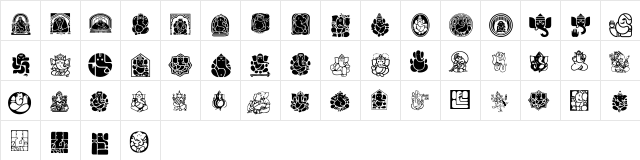
SYMBOL-1 Normal
Design Context for SYMBOL-1 Typeface
SYMBOL-1 is a composed and adaptable typeface that performs quietly and consistently across a wide range of design contexts.